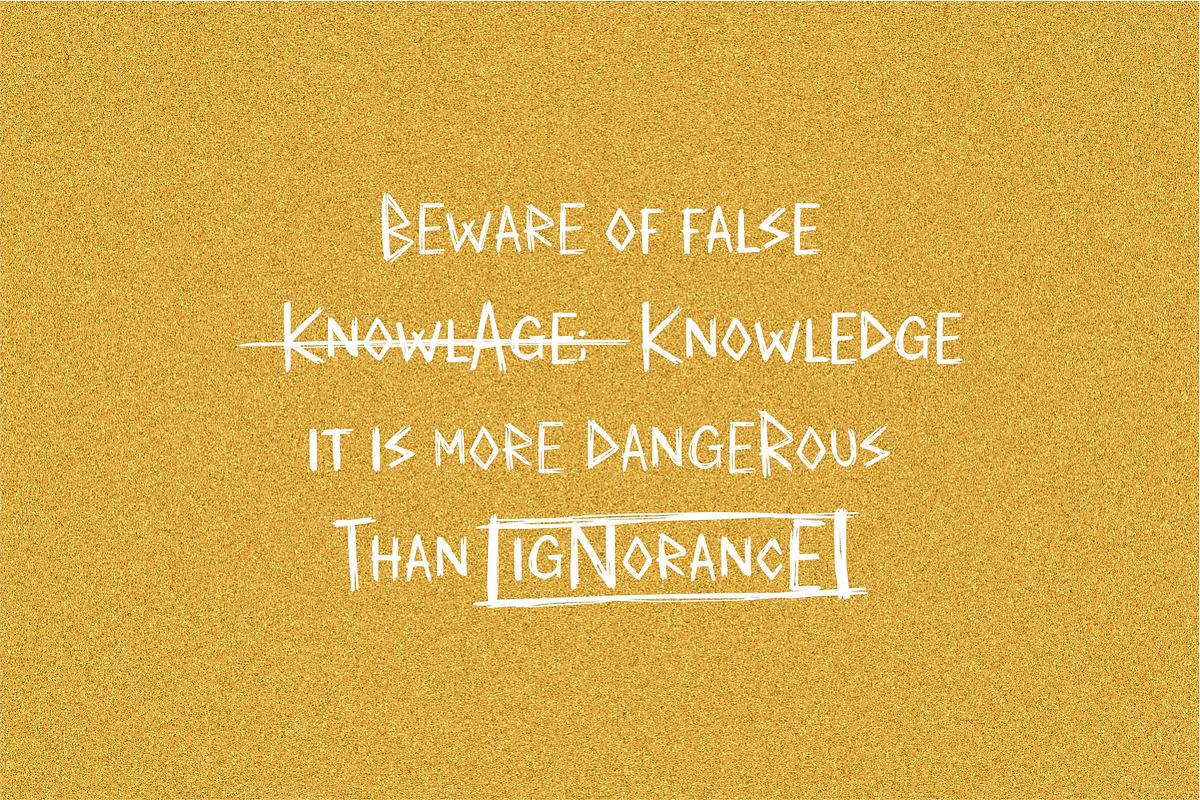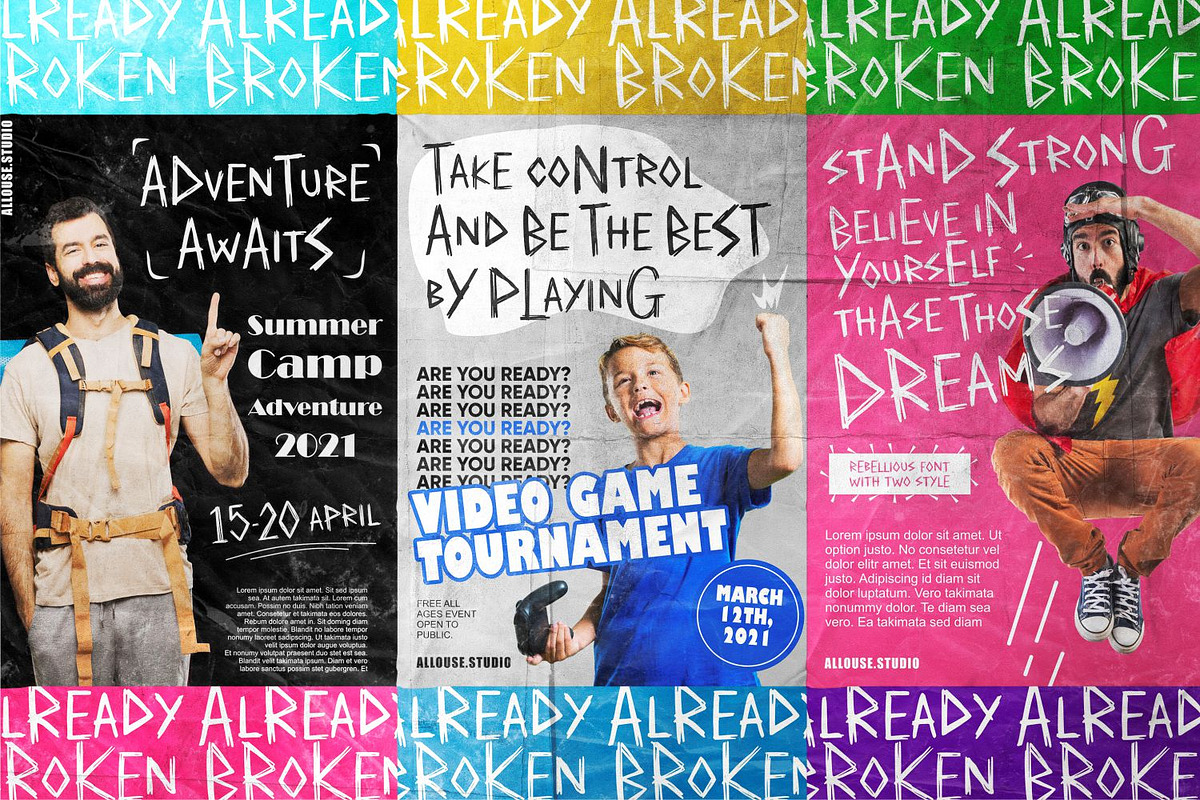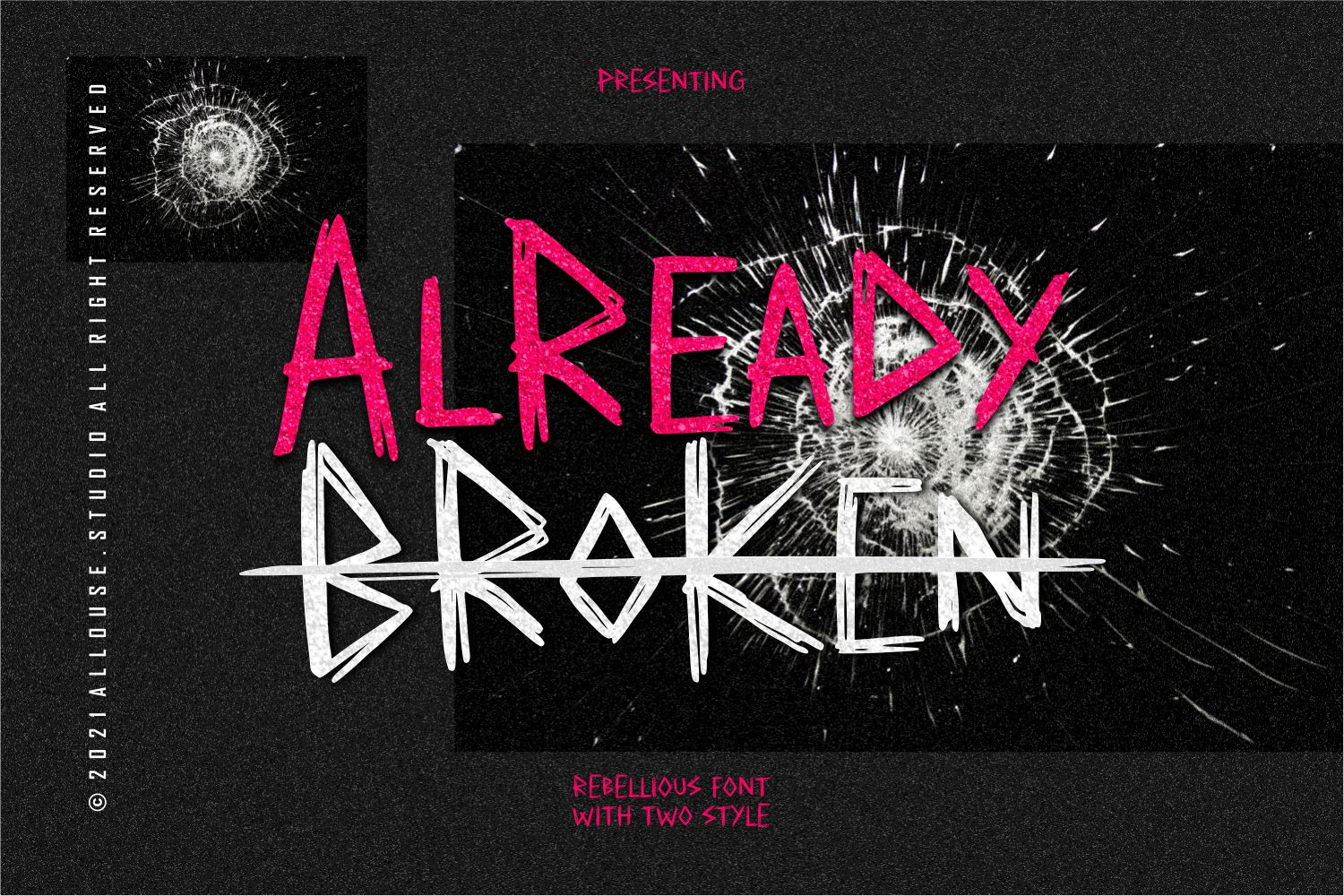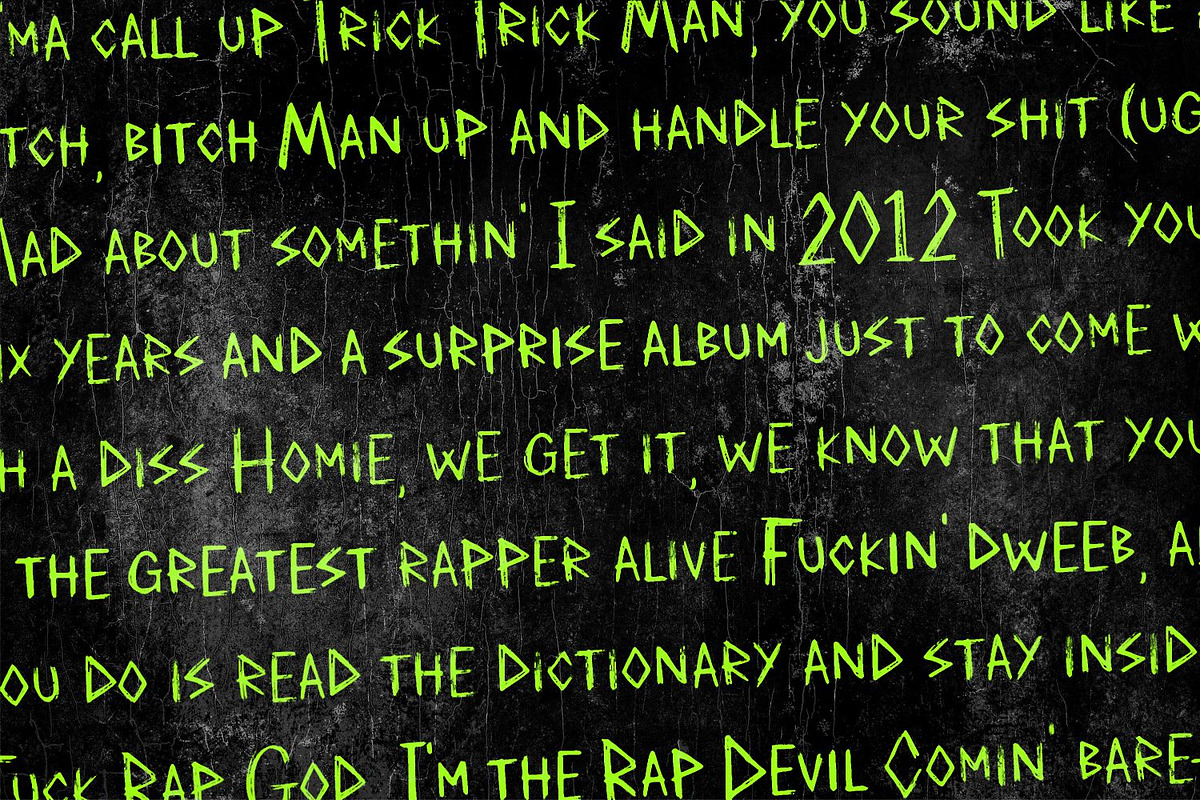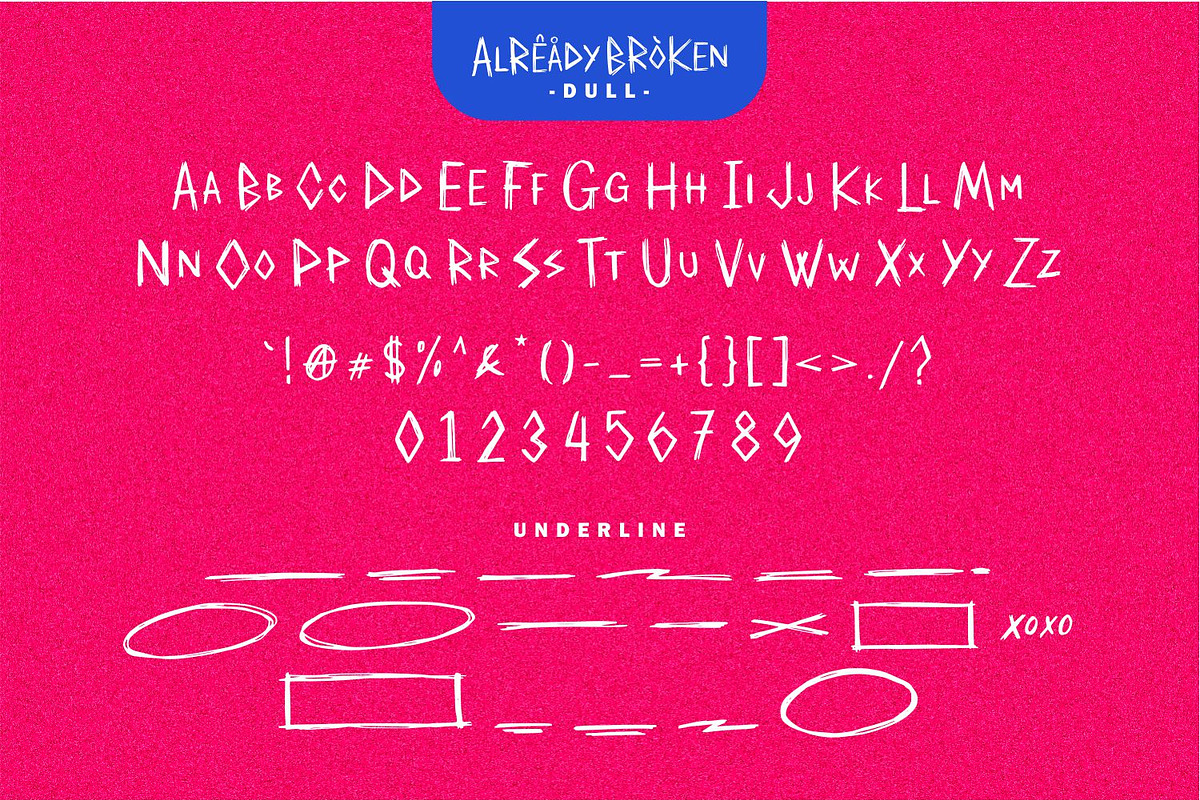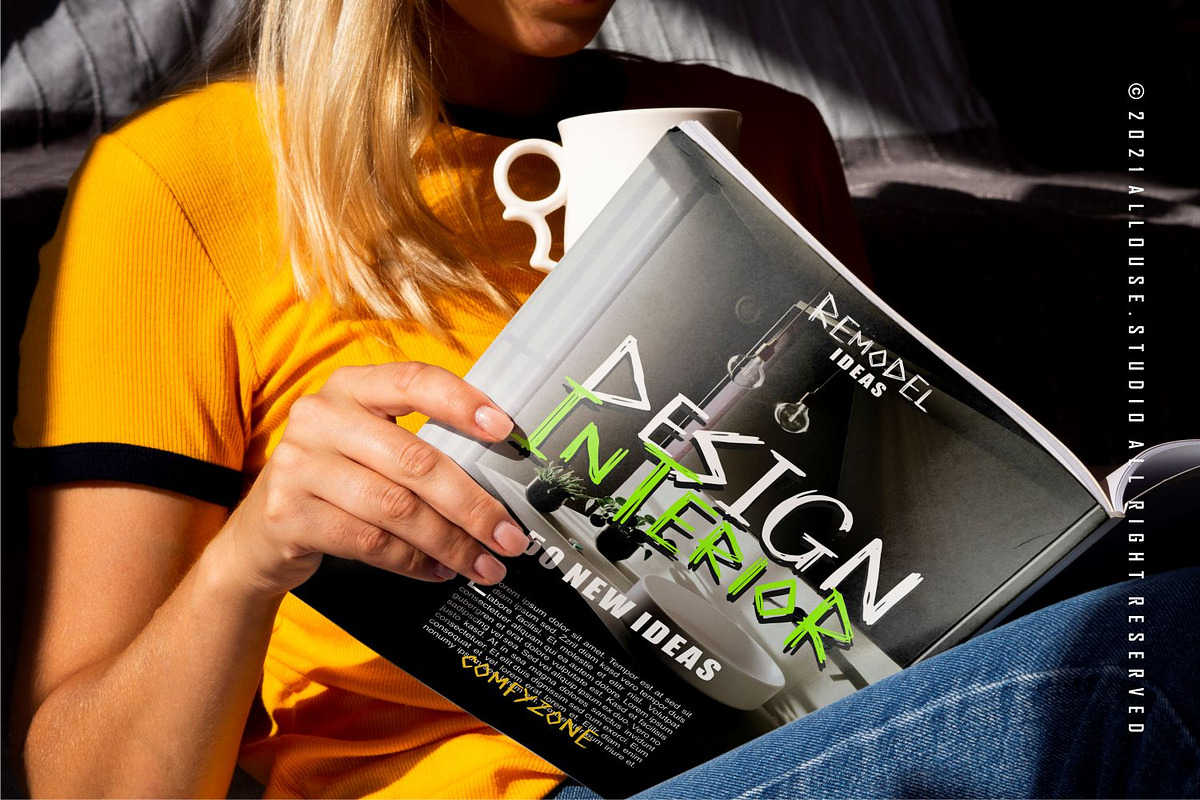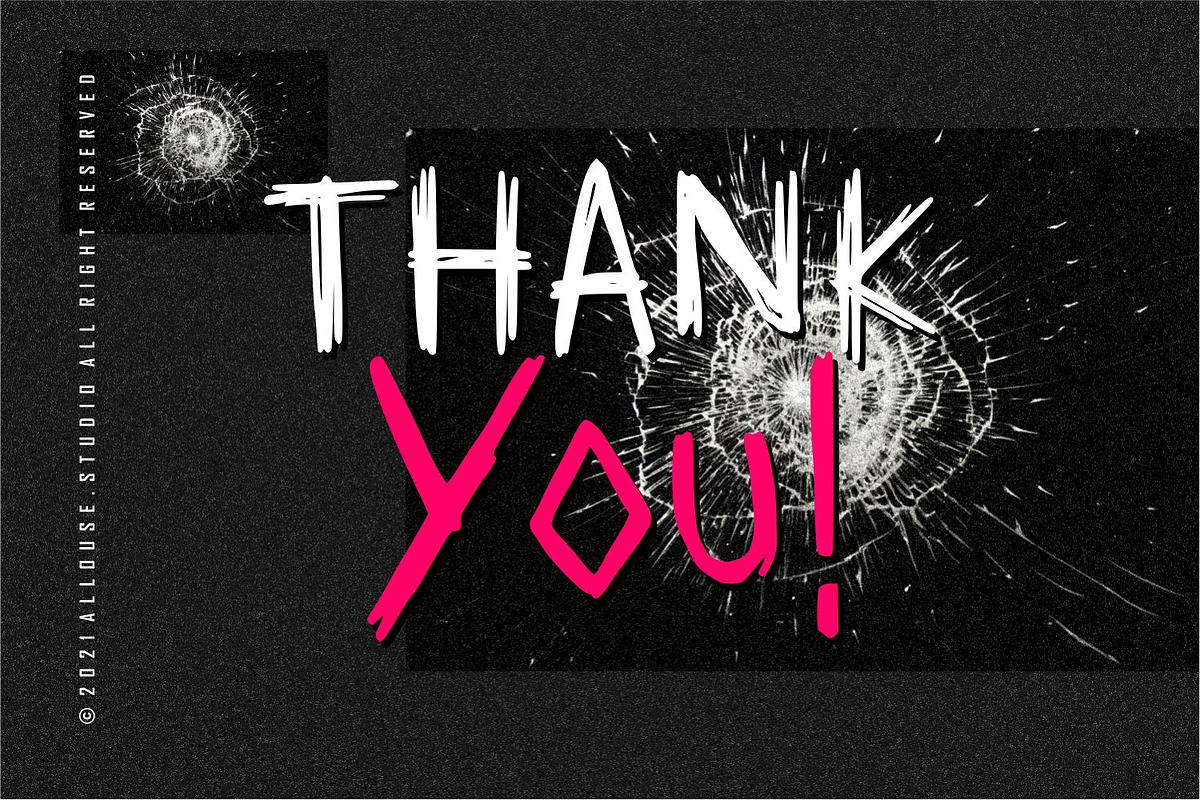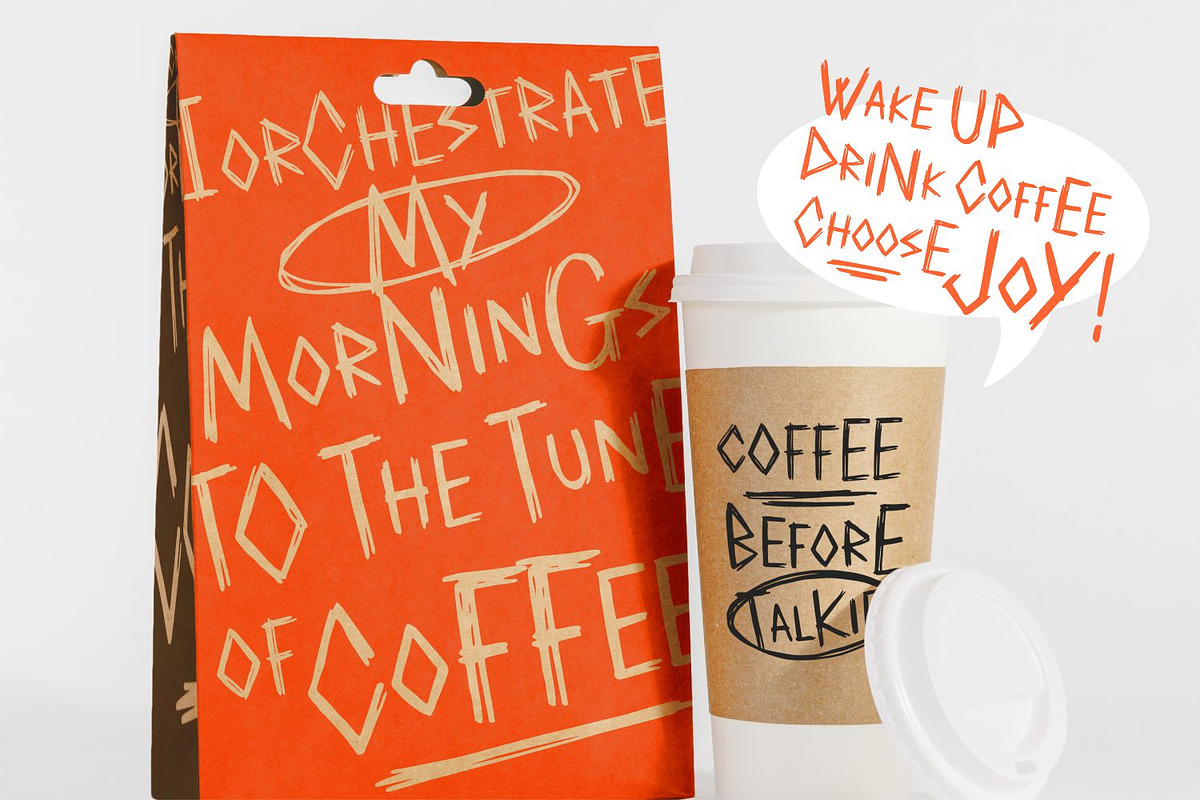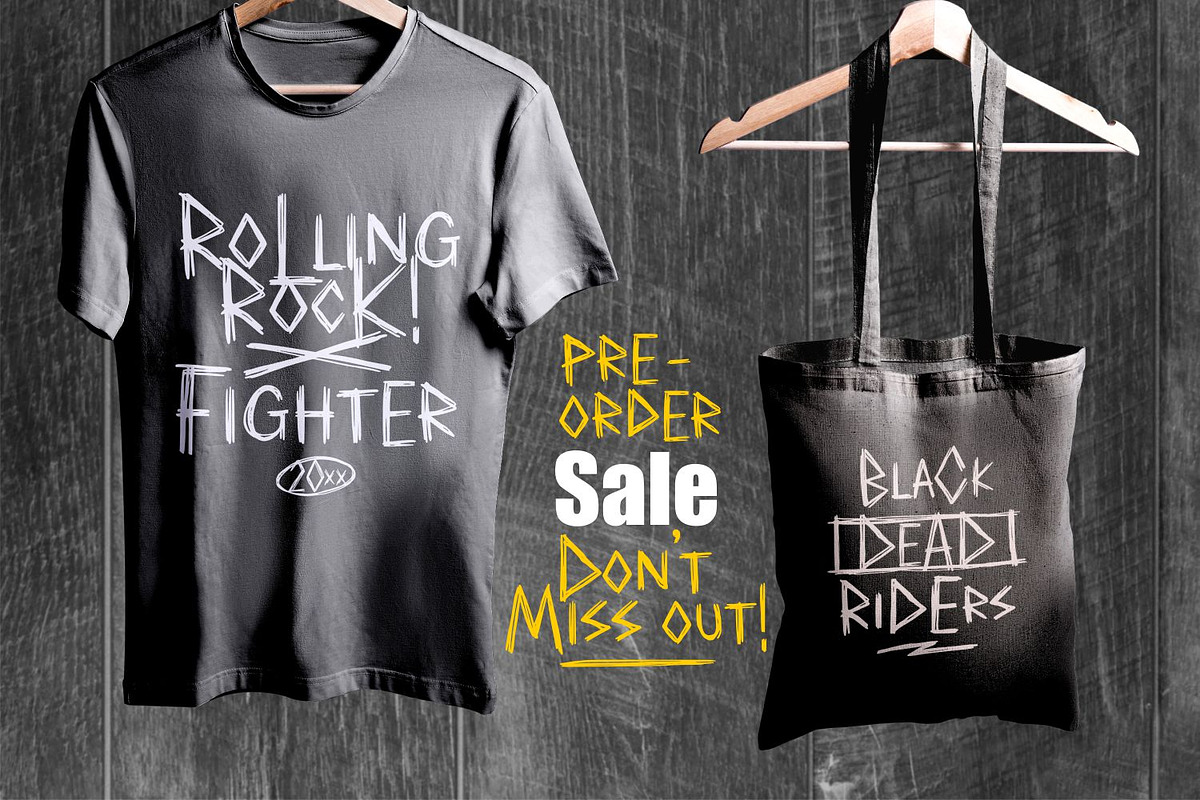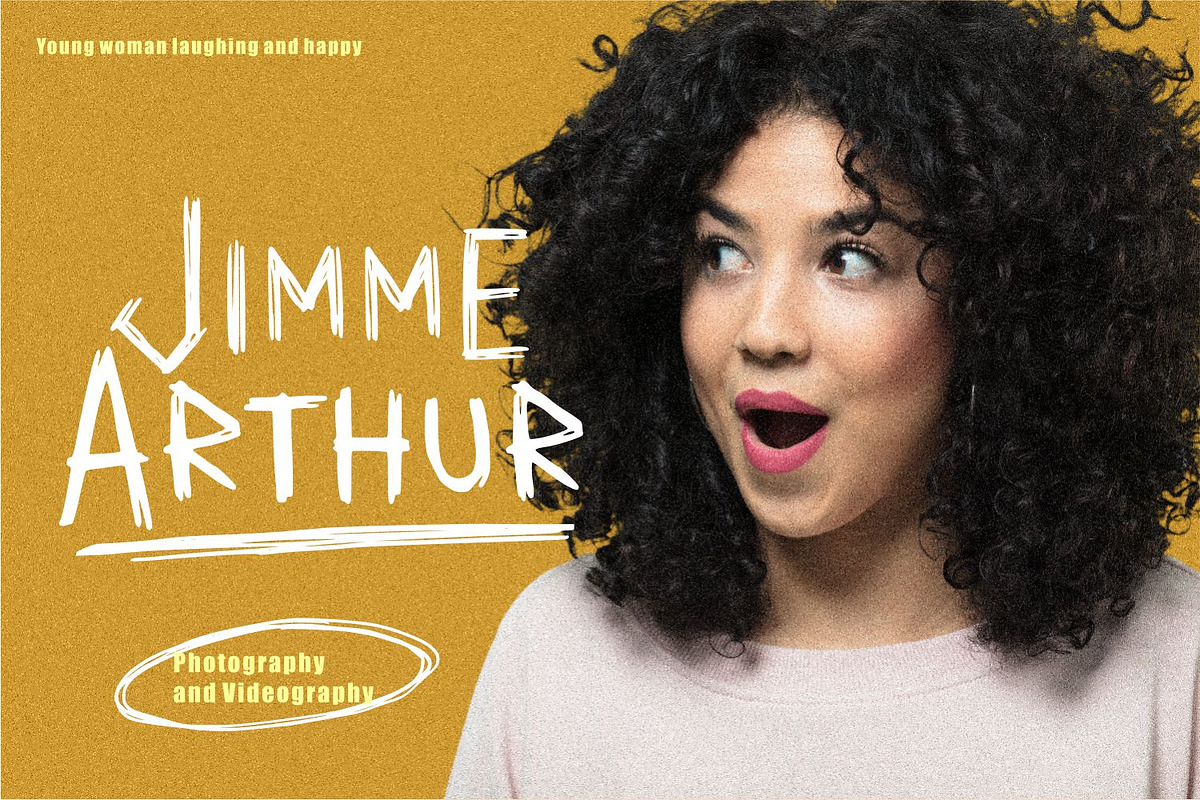
Already Broken Font
Proudly Present, Already Broken (Two Styles)
Already Broken is a Rebellious Font.
Already Broken is perfect for product packaging, branding project, megazine, social media, wedding, or just used to express words above the background.